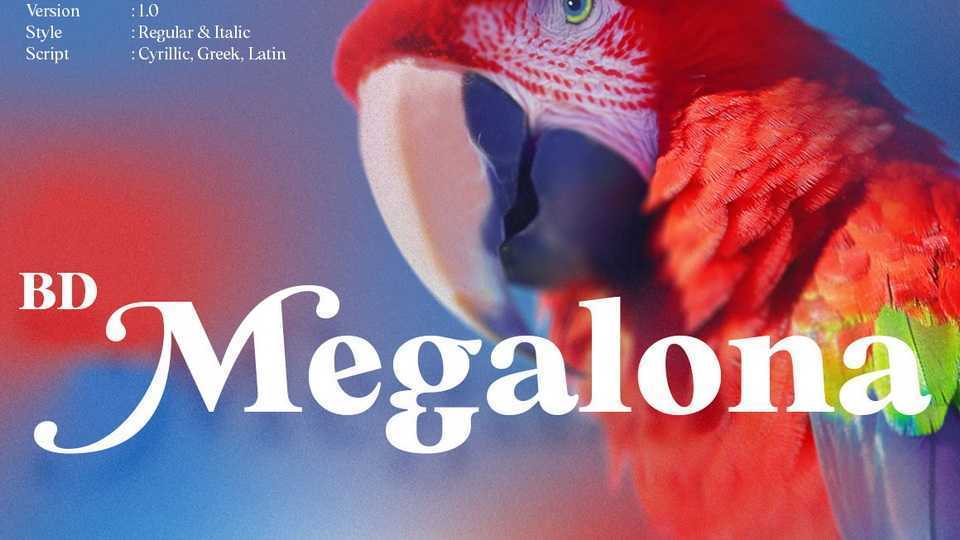
Download BD Megalona font, a serif typeface created by a careful approach, persistence, and full of totality. BD Megalona provides a range of choices that will give luxury vibes in symmetrical layouts with selective deviations.
Designer: Balibilly Design